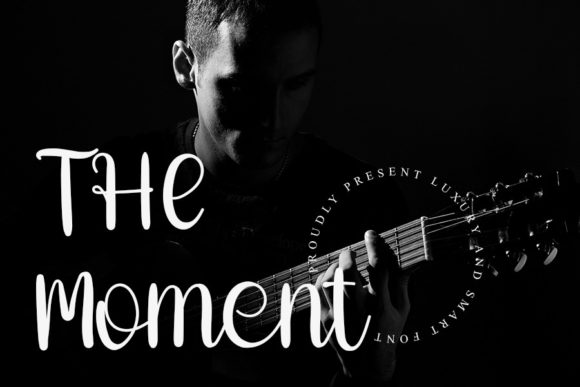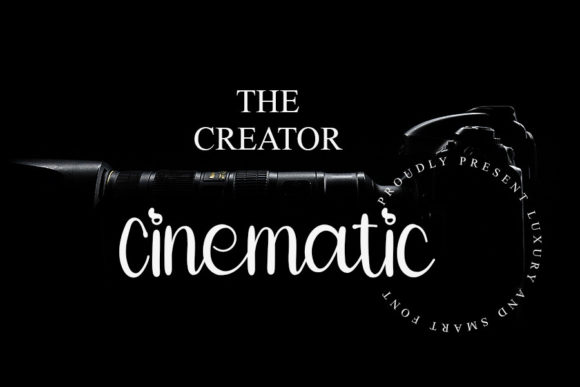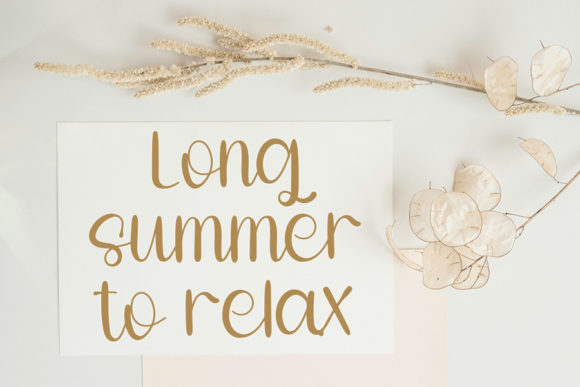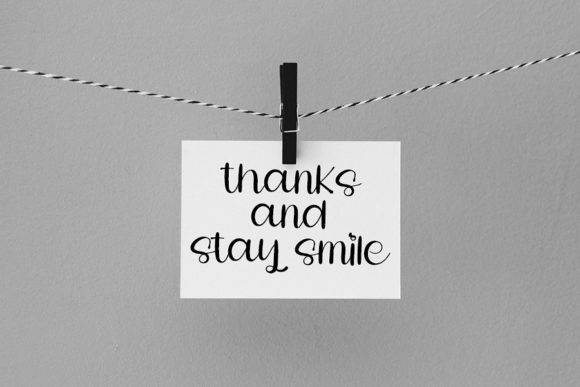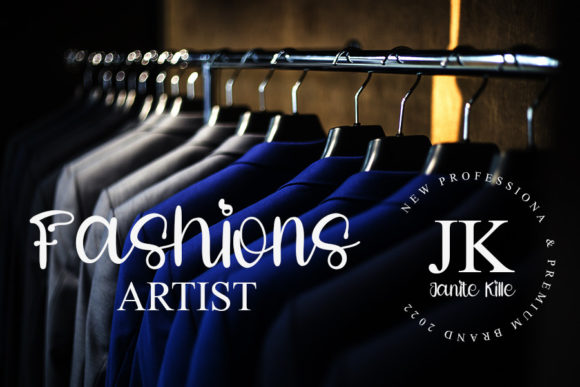
Royal of Signature Font
About Royal of Signature Font
Royal Of Signature is a unique script font. Its flexibility and neat style will brighten up each of your designs. Have fun with this cool font and explore its endless variations.